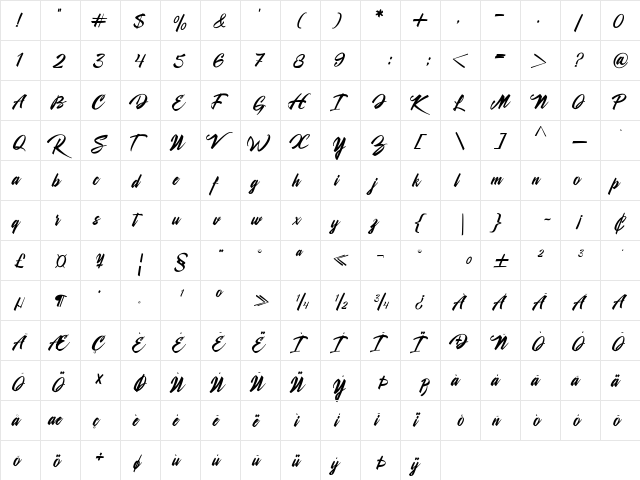
Shanella Regular
Design Context for Shanella Typeface
Shanella is a composed and adaptable typeface that performs quietly and consistently across a wide range of design contexts.